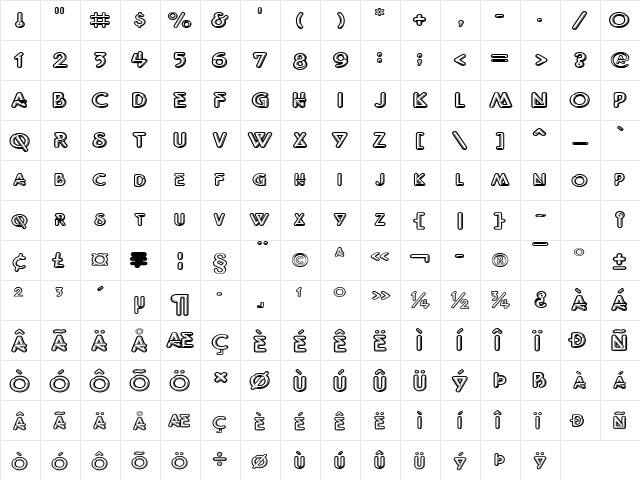
Neonz-Extended Normal
Design Context for Neonz-Extended Typeface
Neonz-Extended has a distinctly futuristic character, with geometric precision and clean angles that feel at home in technology, gaming, and sci-fi contexts.
Pro Tip: Use Neonz-Extended in combination with a neutral sans for body text. Let it define the brand voice in headlines while keeping reading comfortable elsewhere.